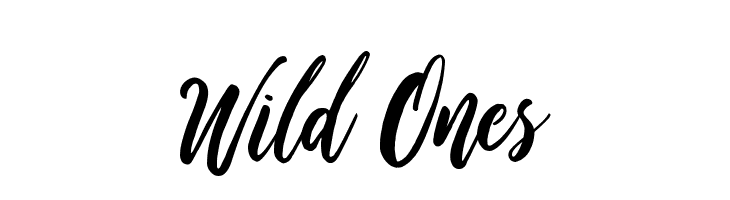
A bold, italicized font with a 3D shadow effect and modern, dynamic style.
A playful, handwritten font with an informal and organic style.
A bold, textured font with a stippled effect, perfect for eye-catching designs.
A bold, expressive script font with dynamic curves and artistic flair.
A playful, hand-drawn font with intricate internal patterns and a whimsical style.
A bold, decorative font with geometric and tribal elements.
Playful handwritten script font.